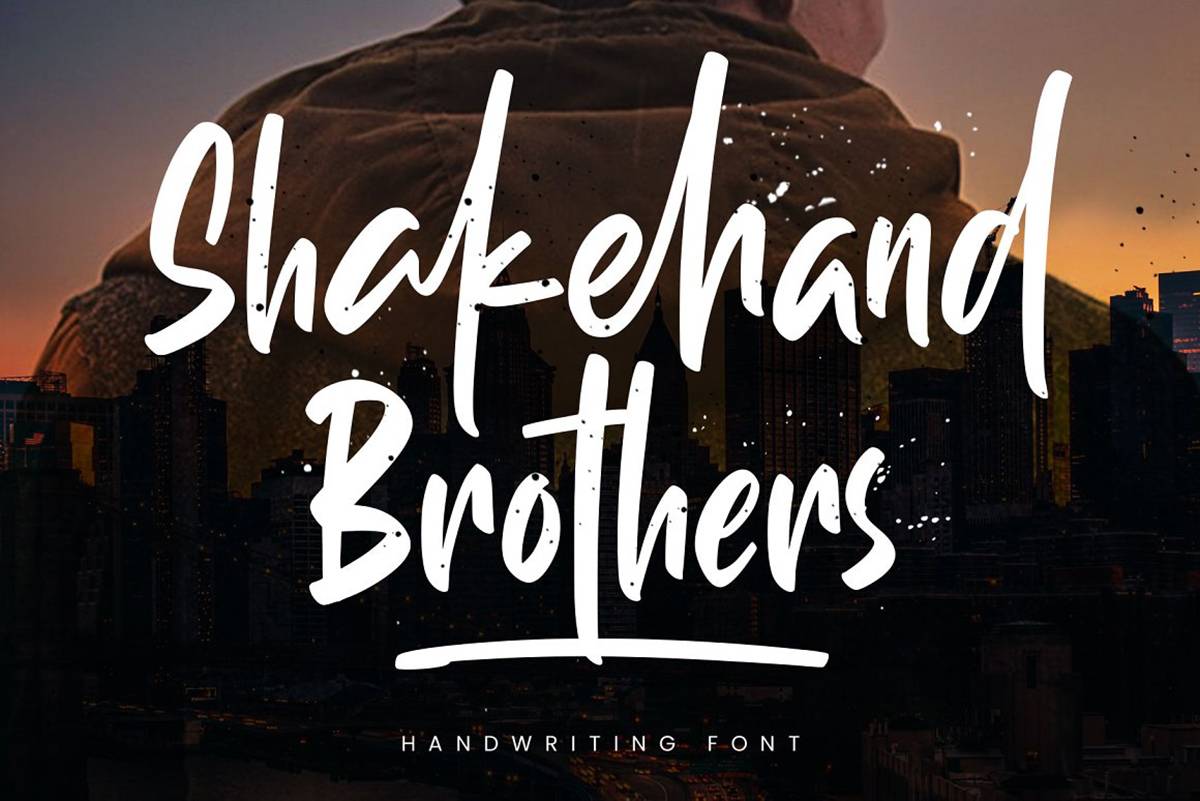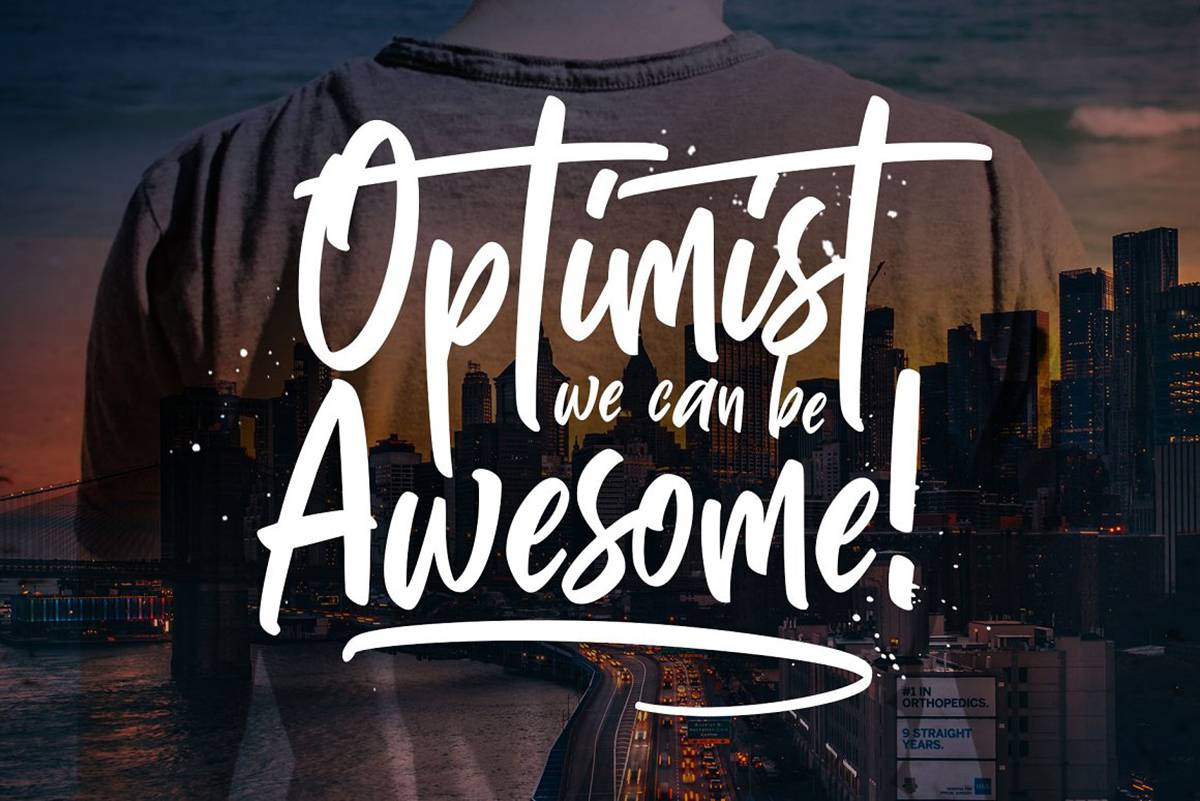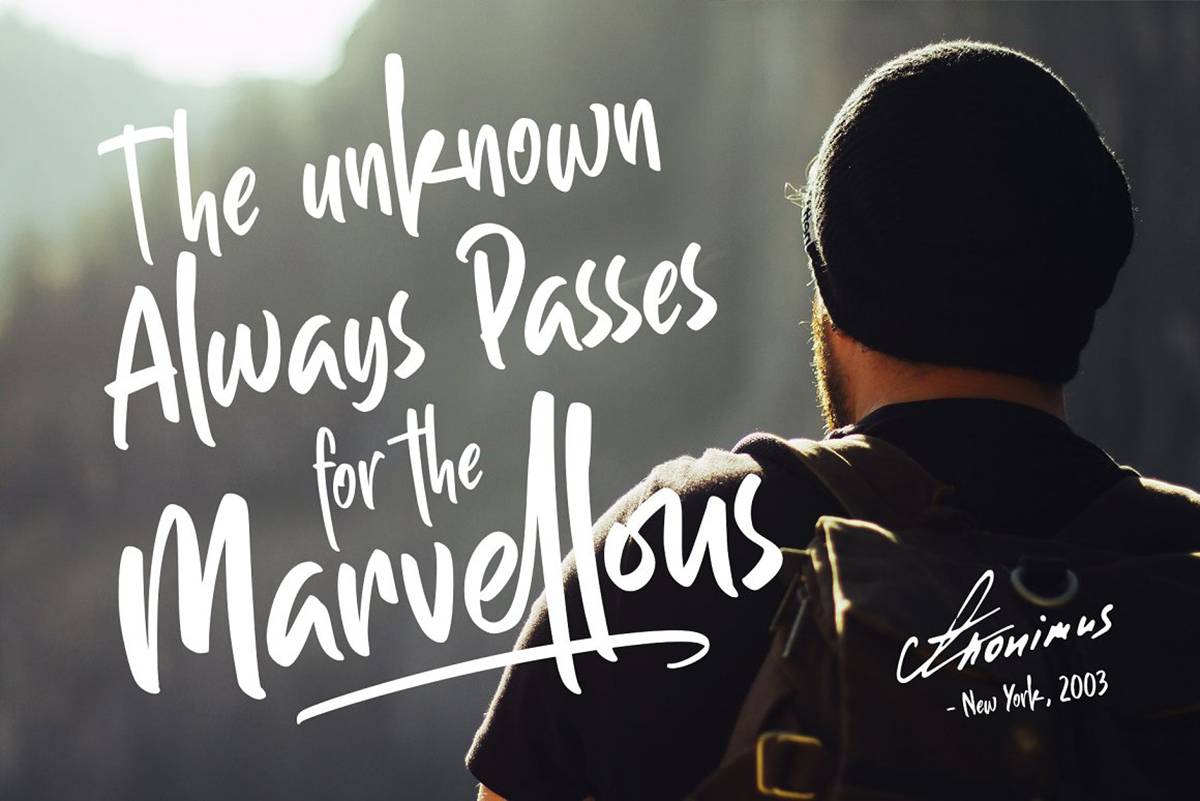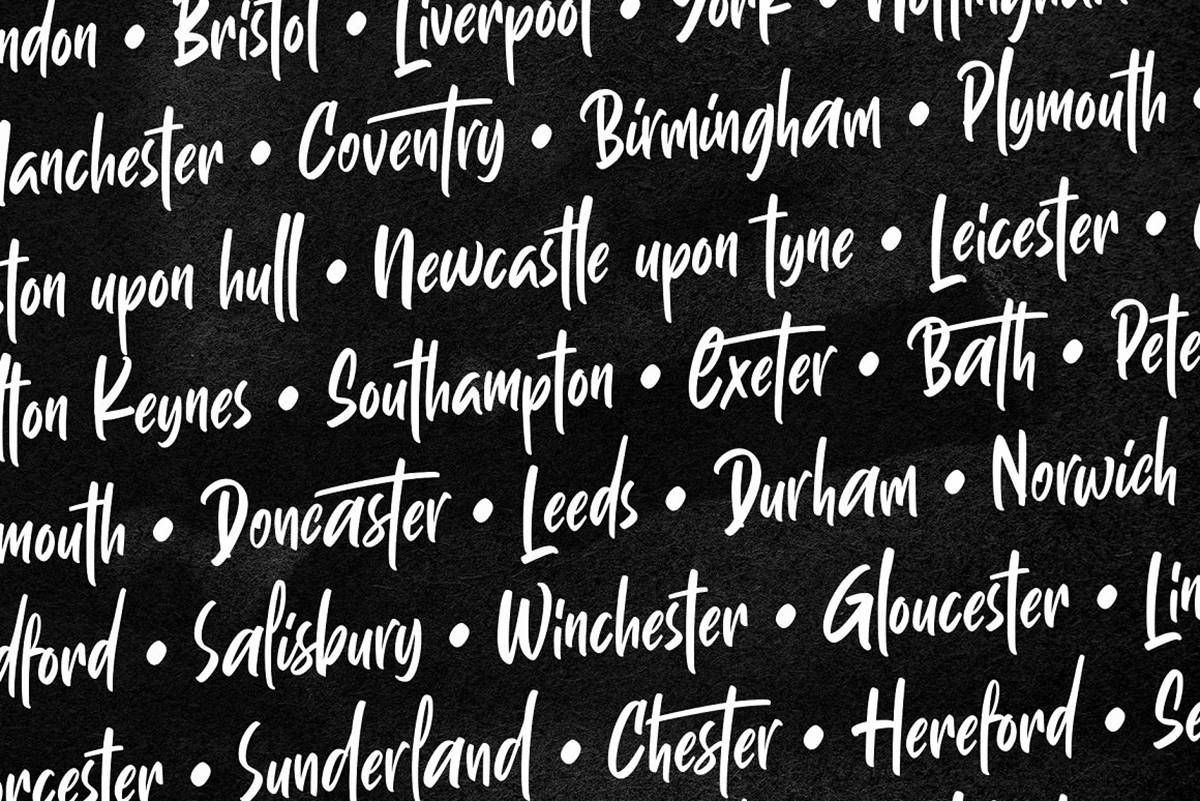
Shakehand Brothers is a lively, handwritten script font with a casual and friendly vibe. Its tall, slightly narrow letterforms paired with playful, irregular strokes give it an energetic and informal feel, perfect for adding personality to branding, posters, and social media graphics. This font works well for projects that want to convey warmth and approachability with a modern, handcrafted touch.
Shakehand Brothers Font
About Shakehand Brothers Font